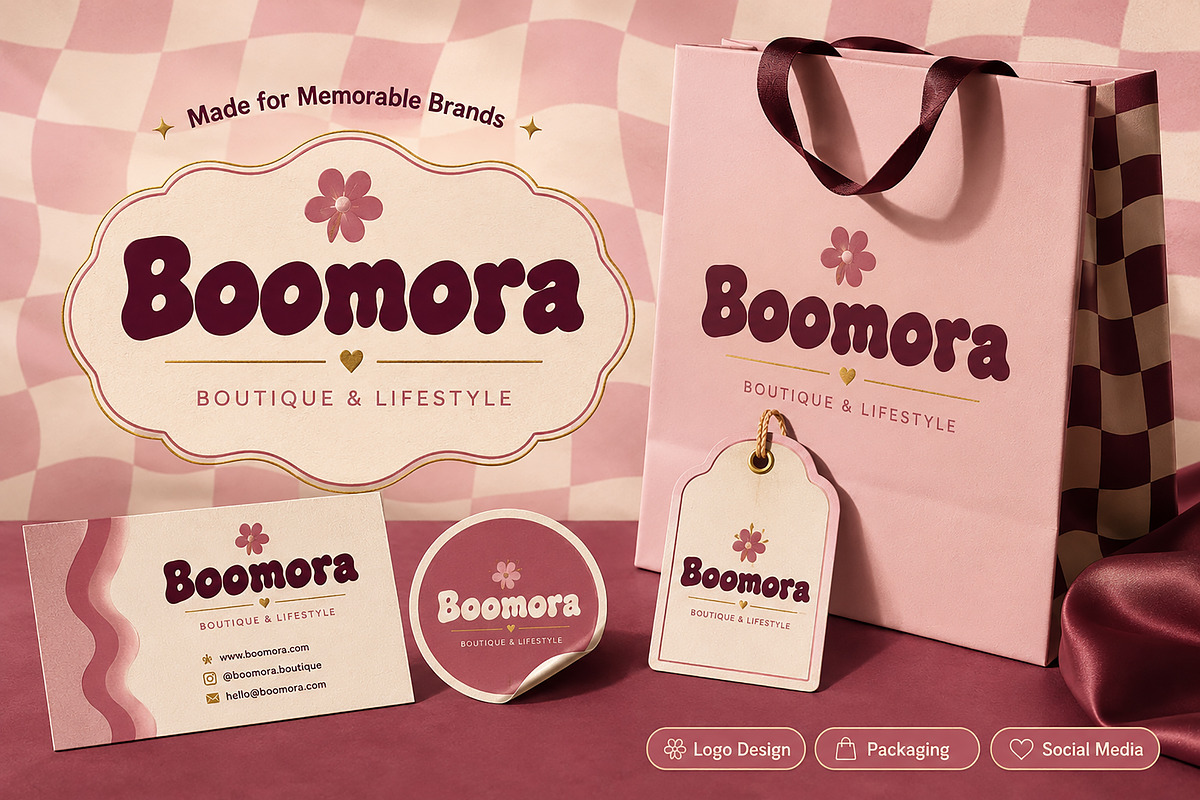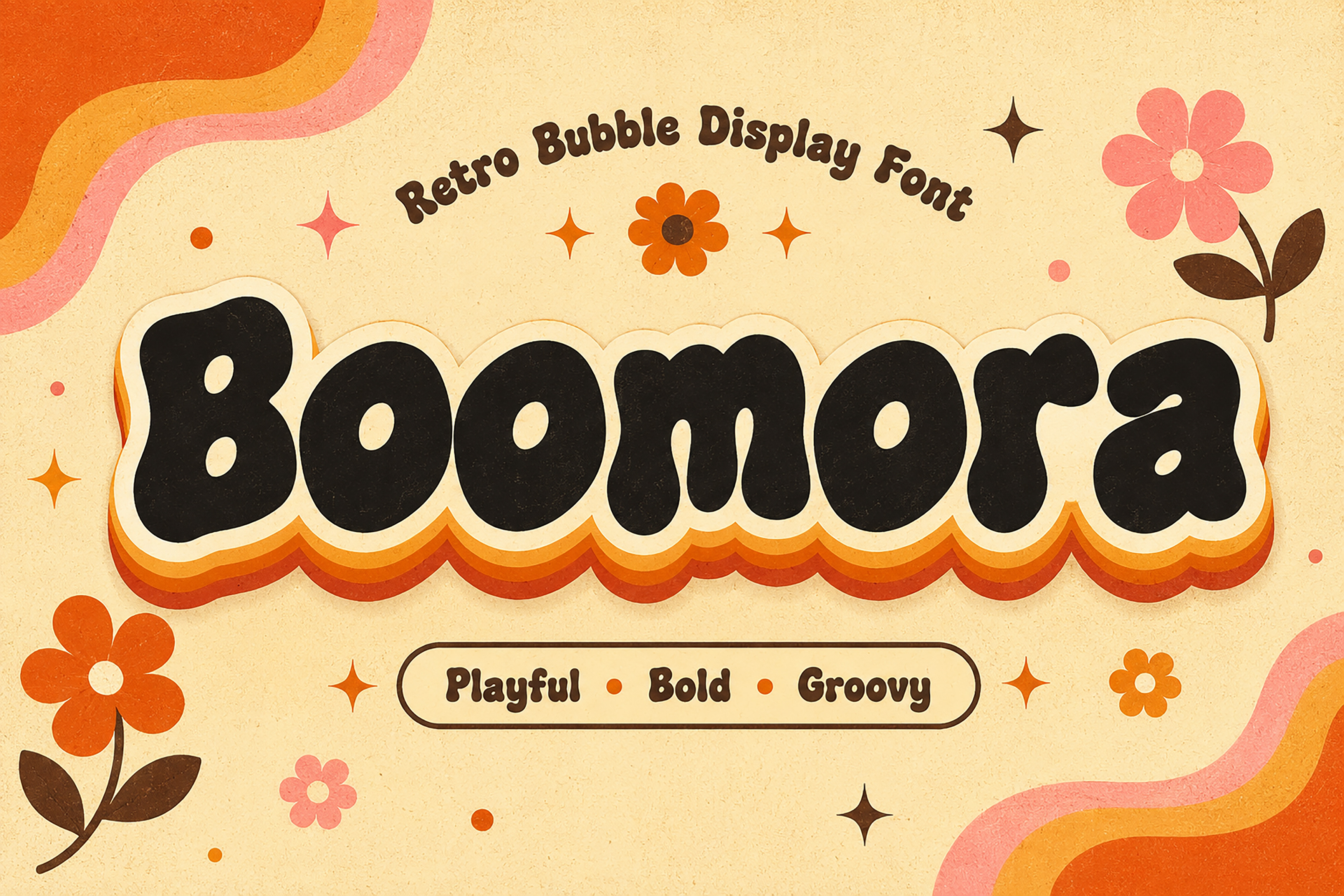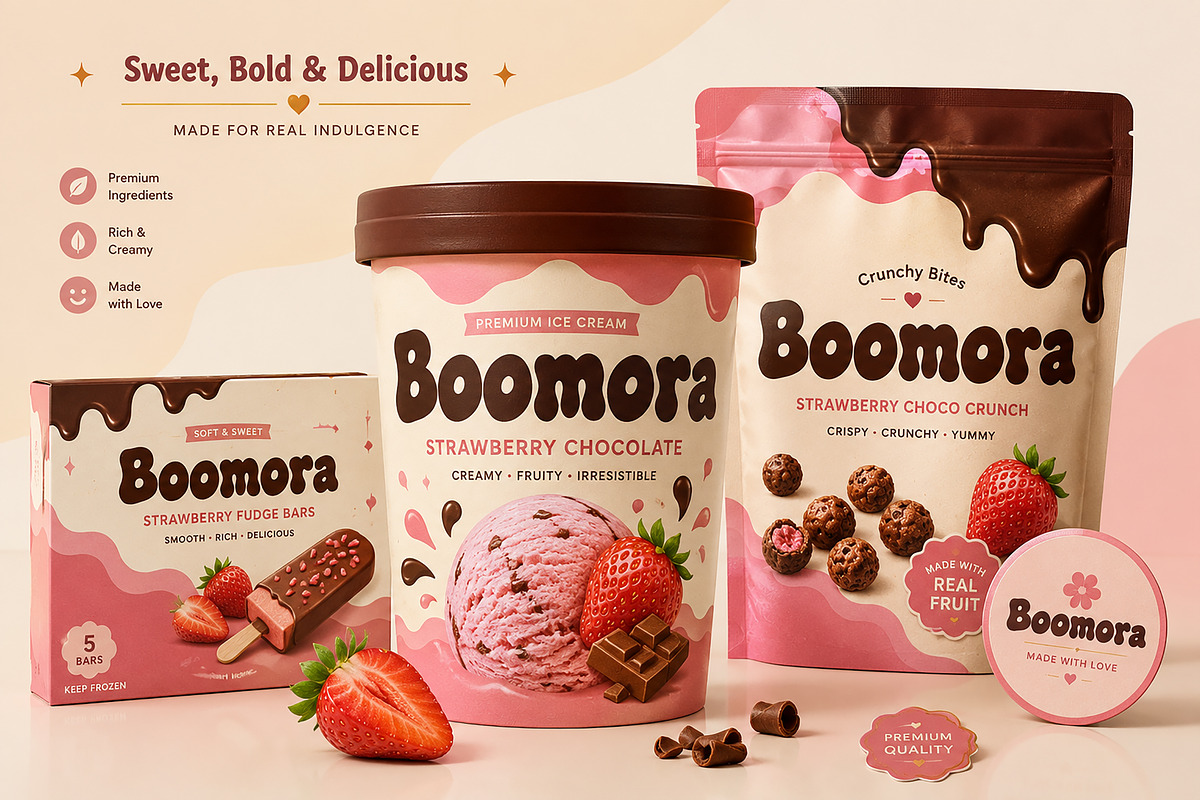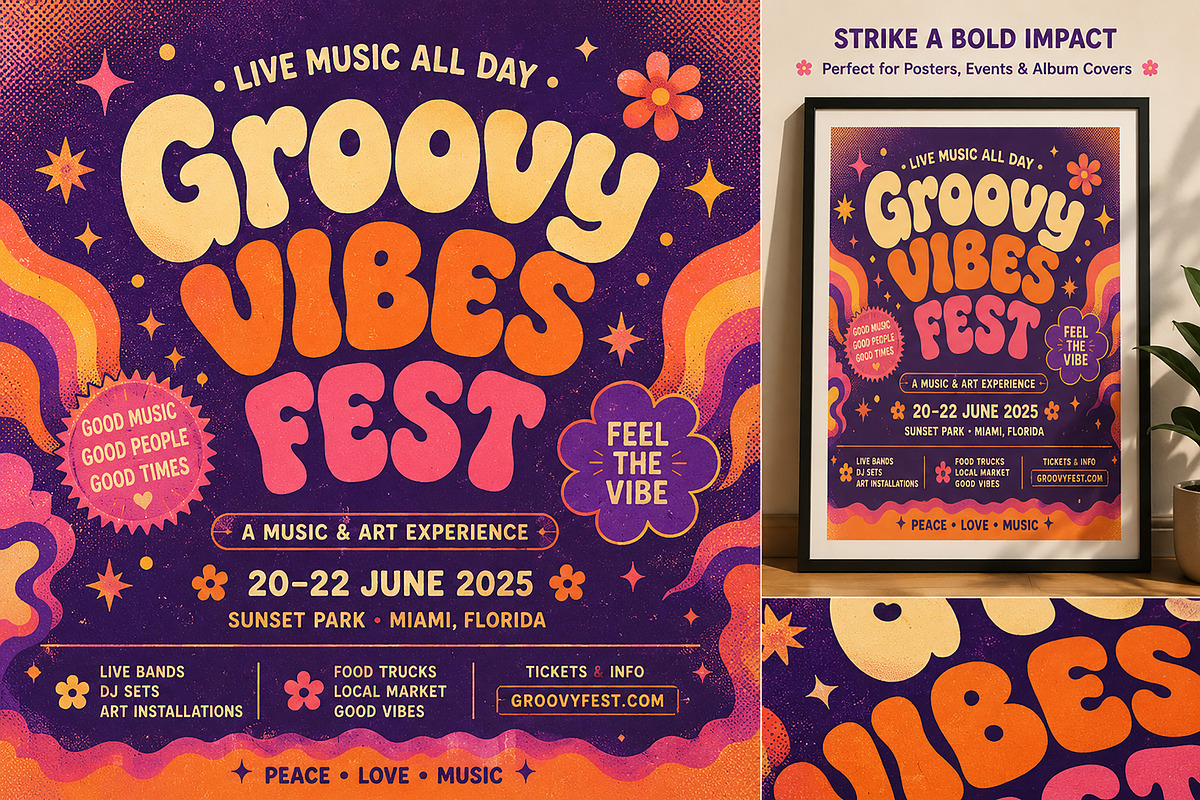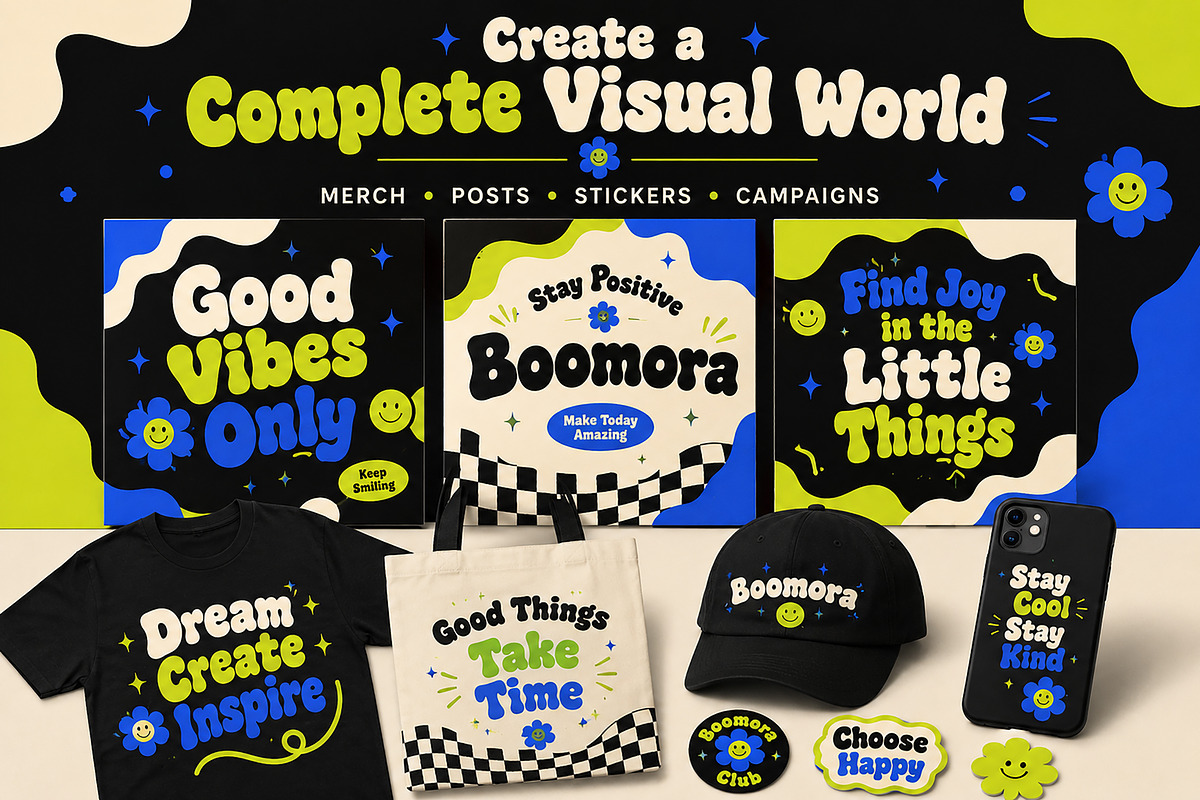
Boomora – Retro Bubble Display Font
Bring bold personality and nostalgic charm to your creative projects with Boomora, a playful retro bubble display font inspired by the iconic groovy style of the 70s. Featuring chunky rounded letterforms and smooth curves, Boomora is designed to make your headlines stand out while maintaining a clean, professional, and highly readable appearance.
Whether you're designing eye-catching logos, trendy packaging, colorful posters, or social media graphics, Boomora delivers a fun yet premium look that instantly grabs attention. Its bold display style makes it perfect for branding projects that need warmth, creativity, and a memorable visual identity.
Ideal for designers, creators, and small businesses looking to create standout designs with a modern retro aesthetic.
Branding
Boutique & Lifestyle Brands
Bakery Packaging
Candy Packaging
Ice Cream Packaging
Coffee Shop Branding
Beauty & Cosmetic Packaging
Posters
Album Covers
Event Graphics
Social Media Content
T-Shirt Designs
Stickers
Labels
Greeting Cards
Website Headers
YouTube Thumbnails
Uppercase Letters
Lowercase Letters
Smooth Rounded Letterforms
Bold Retro Bubble Style
Why Choose Boomora?
Bold and highly readable
Fun, friendly, and professional
Perfect for commercial branding
Inspired by classic retro aesthetics
Ideal for print and digital projects
Great for headlines and display typography